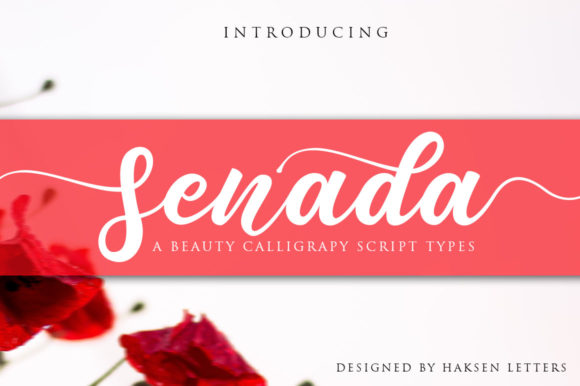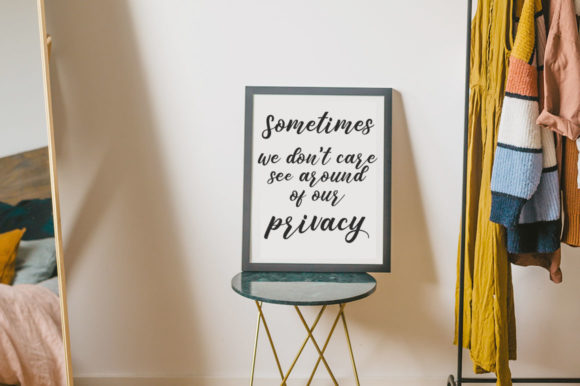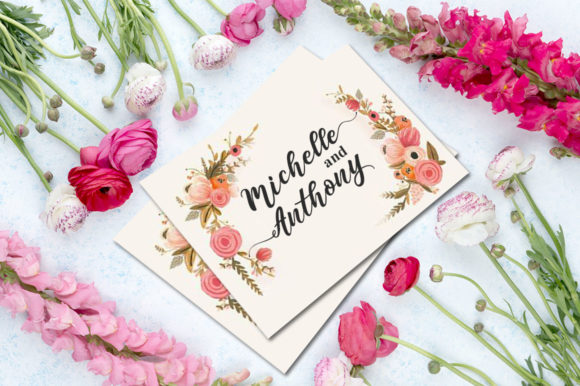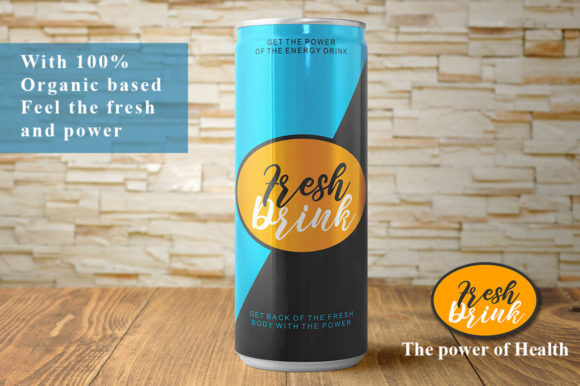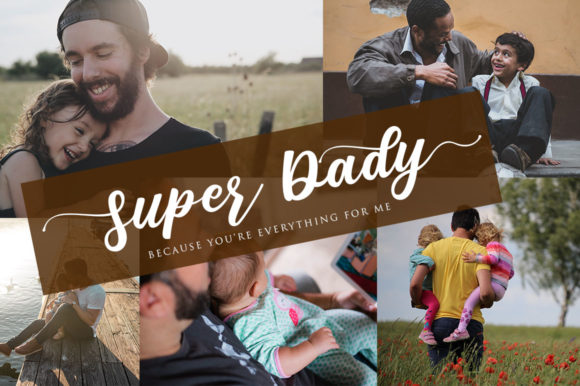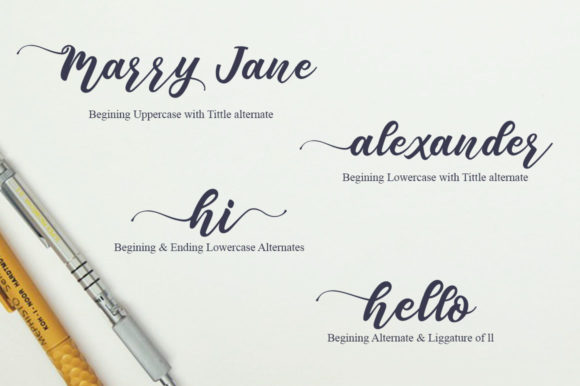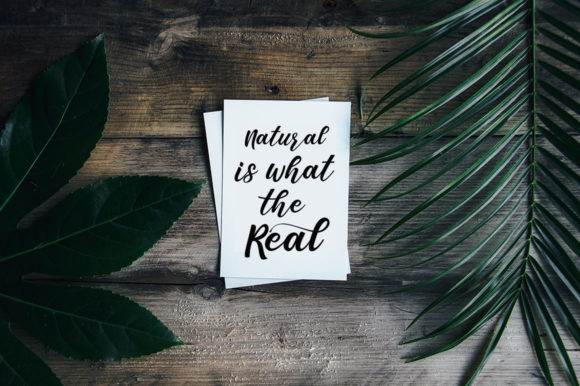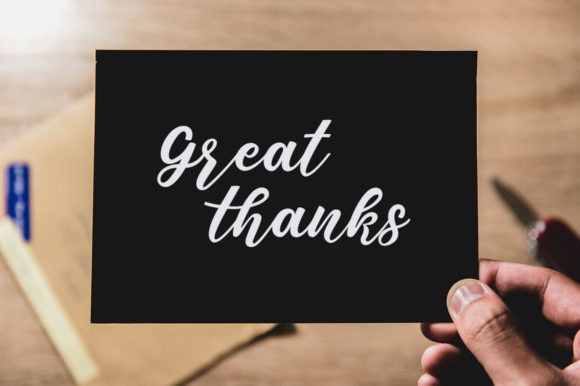
Senada Font
About Senada Font
Senada is a striking and charming handwritten font, full of authenticity. Get inspired by its unique feel, and turn any design project into a stand out!